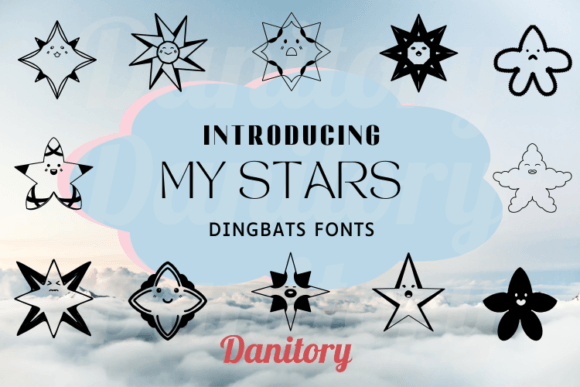
Introducing My Star Font, the ultimate choice for all the Star Wars enthusiasts out there! Designed by the talented danita.kukkai, this captivating and enchanting dingbats font is here to elevate your creative projects to a whole new galaxy.
Get ready to embark on a whimsical journey with My Star Font, as it brings a touch of magic and charm to your designs. With its collection of cute stars, this font allows you to add a sprinkle of stardust to your bullet journals, scrapbooks, invitations, and more. Let your imagination run wild and watch as your projects come alive with a unique and innovative touch.
Immerse yourself in the hand-drawn designs of My Star Font, where each stroke is perfectly crafted to capture the essence of enchantment. This font is more than just a collection of symbols; it's a gateway to a world of infinite possibilities. Whether you're a Star Wars fanatic or simply looking to add a touch of whimsy to your creations, My Star Font is the perfect choice for you.
Let your creativity soar as you explore the versatility of My Star Font. Its captivating characters will effortlessly transform your designs into masterpieces that leave a lasting impression. From captivating headlines to eye-catching logos, this font has the power to make your projects shine brighter than a star-filled sky.